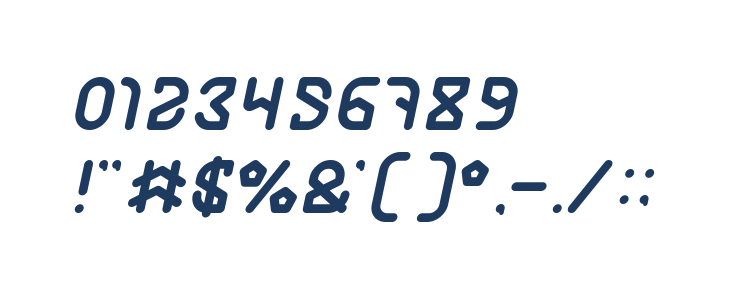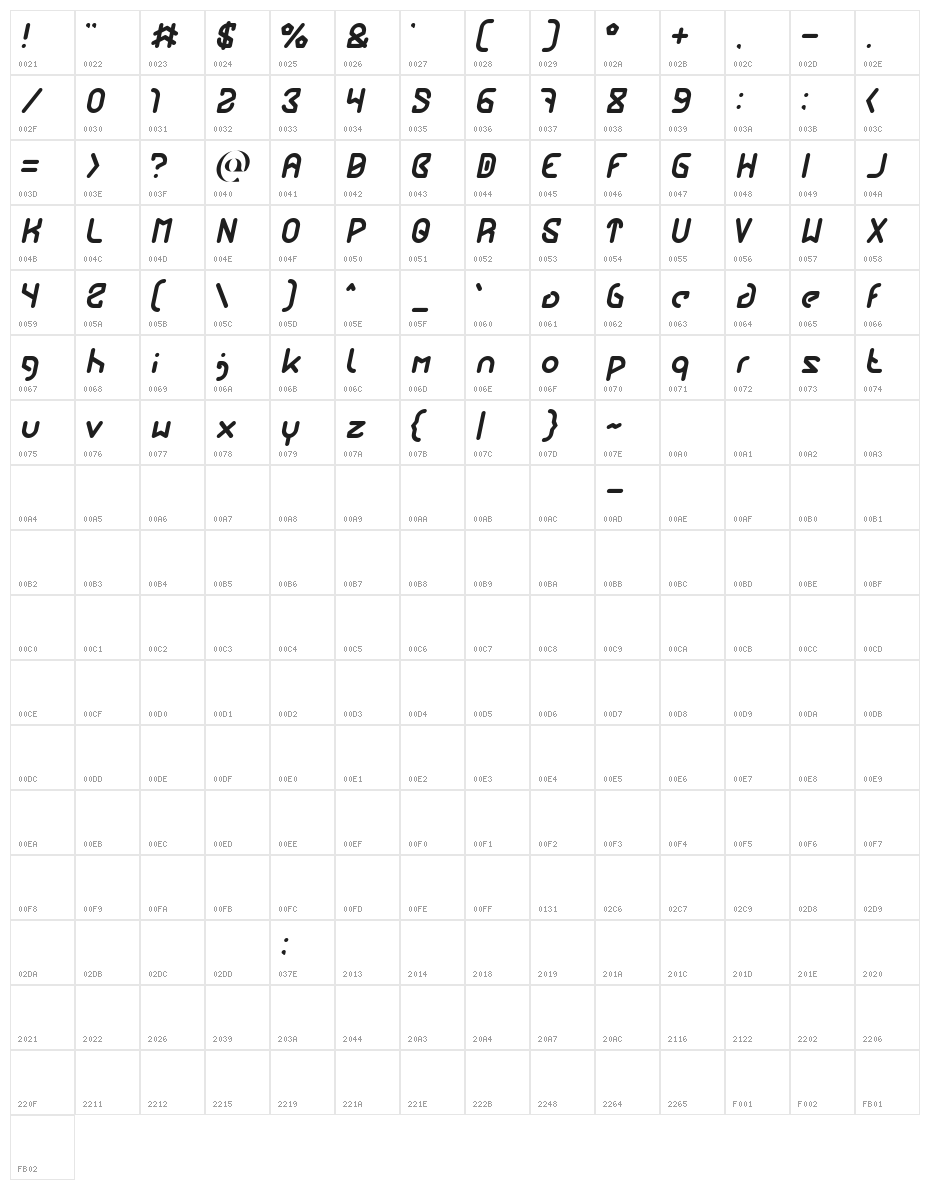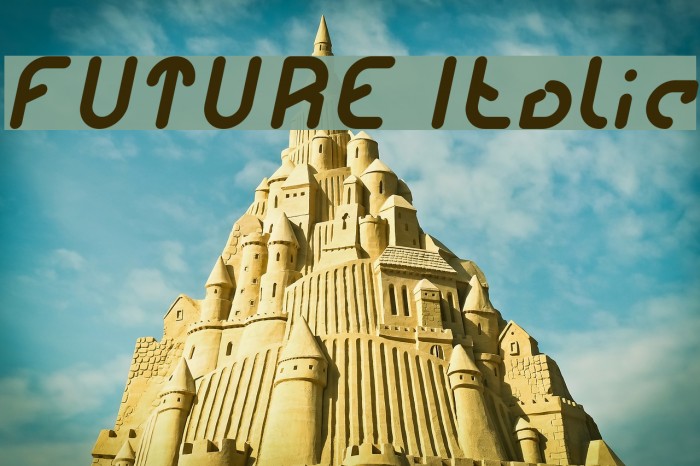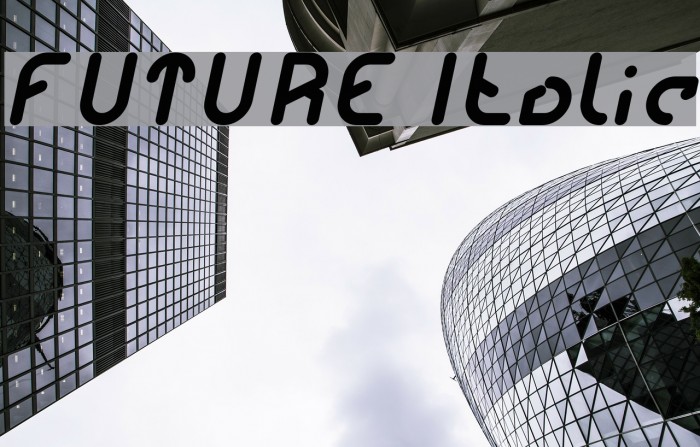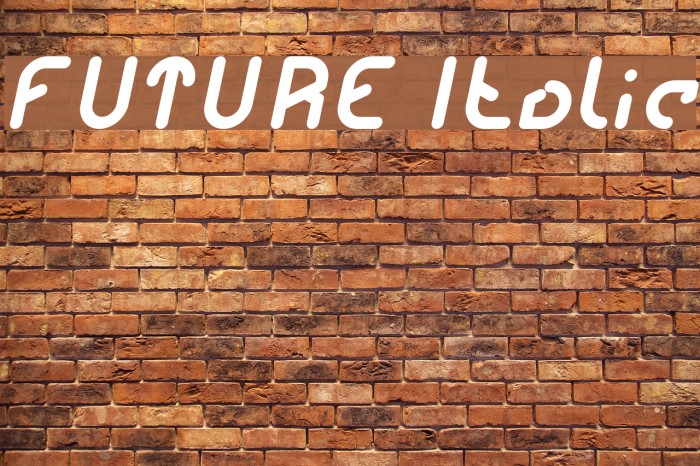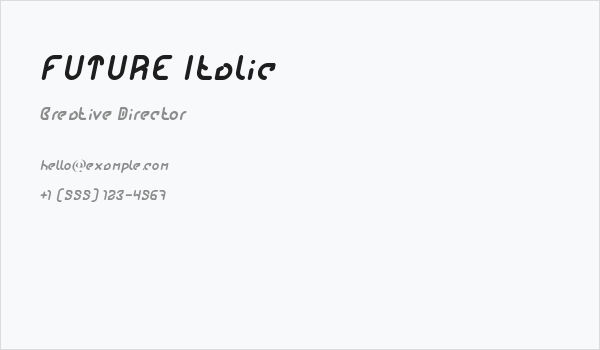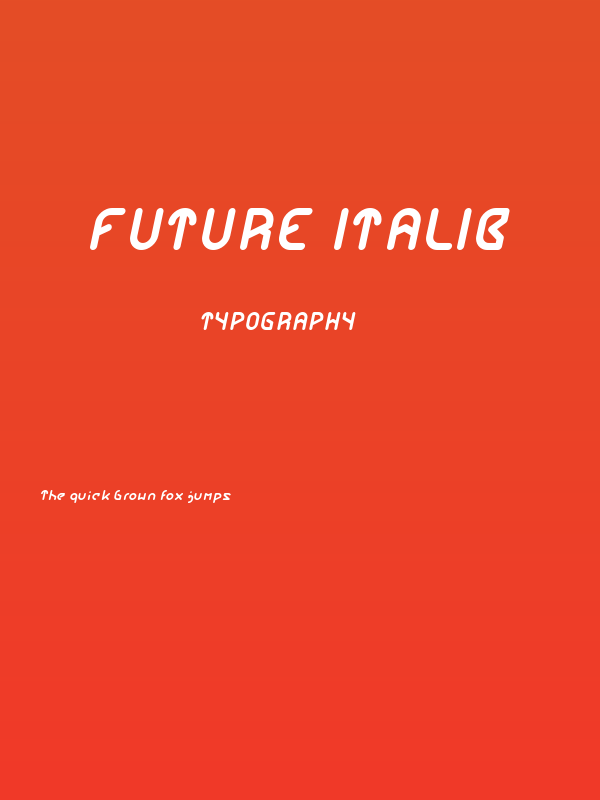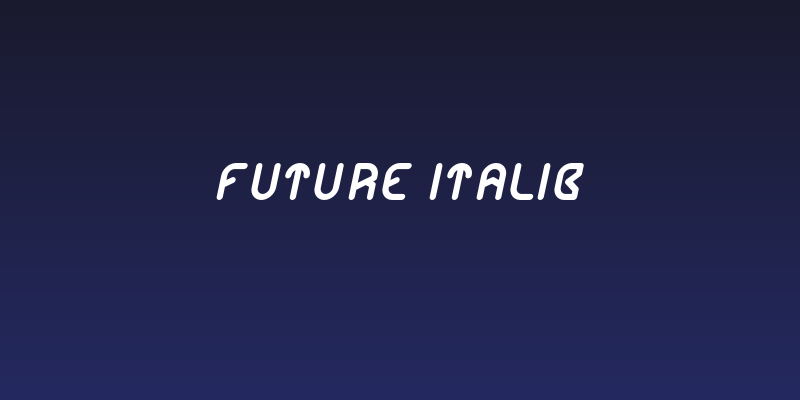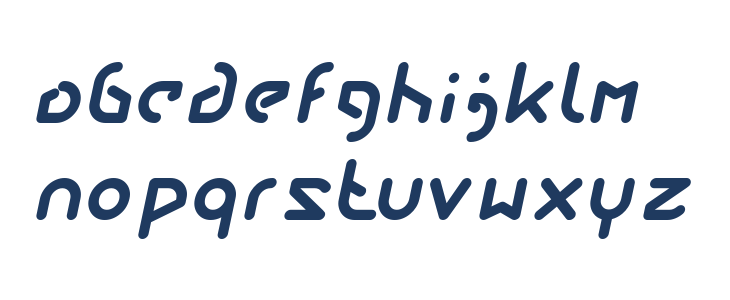
FUTURE Italic Font
FUTURE Italic Description
This font features a futuristic and dynamic design with a distinct italic slant, giving it a sense of motion and energy. The characters are bold and rounded, with a uniform stroke width that maintains consistency across all letters and numbers. The uppercase and lowercase letters are easily distinguishable, and the numerals are clear and legible. Special characters are included, maintaining the same bold and rounded style. The overall appearance is modern and sleek, making it suitable for projects that require a contemporary and energetic look.
| Proposed Projects | Ideal for technology branding, sci-fi themed designs, video game titles, and modern advertising. |